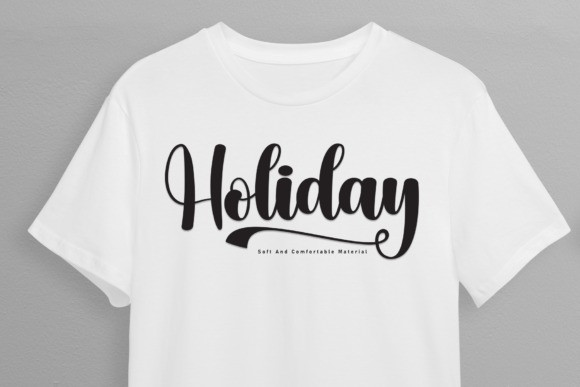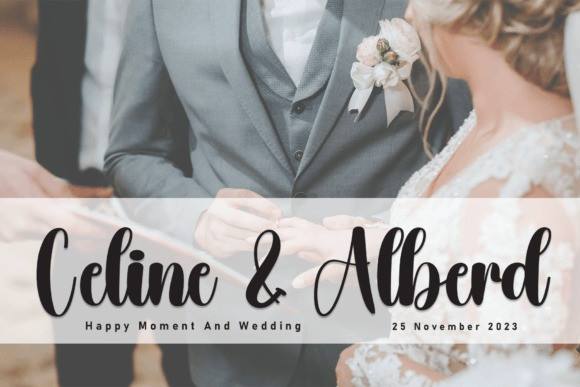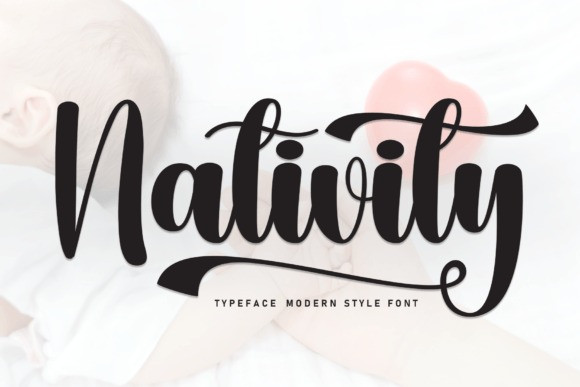
Nativity Script Font
Nativity Script Font is a striking handwritten font that combines the warmth of hand-drawn characters with a bold intensity. Its fluid strokes and distinct curves give your text a unique and engaging personality, making it perfect for adding a touch of creativity and emphasis to your projects.